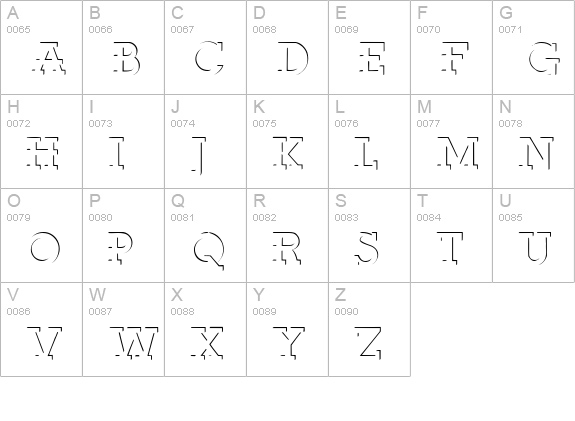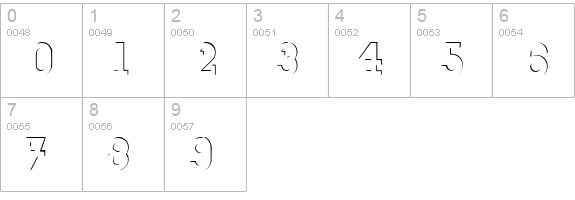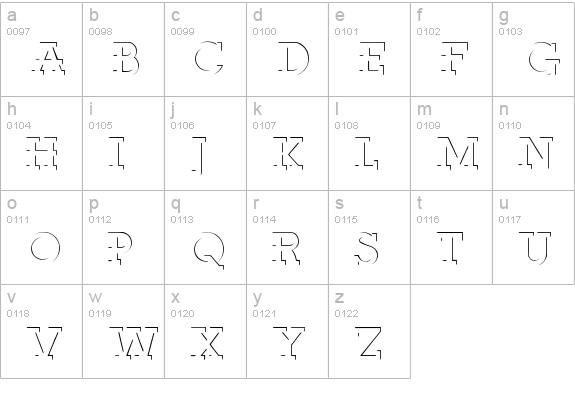
ReliefDeco Medium Font Details
ReliefDeco Medium is a balanced, medium-weight variant in the ReliefDeco typeface family \xE2\x80\x94 well suited to sub-headlines, navigation, and balanced editorial work.
ReliefDeco Medium font is a stunning display typeface that exudes elegance and sophistication. Its intricate detailing and sleek lines make it perfect for adding a touch of class to any design project. This font is the epitome of modernity, combining boldness with a hint of vintage charm. The ReliefDeco Medium font is not only aesthetically pleasing but also highly versatile. Whether you are designing a logo, a poster, or a website, this font will surely make a lasting impression. Its distinct characters and well-balanced proportions ensure legibility and readability, even at smaller sizes. One of the best features of ReliefDeco Medium font is that it is freely available to download at FontsMarket.com. This means that you can easily access and incorporate this exceptional font into your creative projects without any extra cost. By offering this font for free, the creators of ReliefDeco Medium have made it accessible to a wide range of designers, enabling them to elevate their designs without breaking the bank. So, if you're looking for a font that combines elegance, versatility, and affordability, look no further than ReliefDeco Medium. With its stunning design and the convenience of being freely available to download at FontsMarket.com, this font is a must-have for any designer seeking to make a statement.